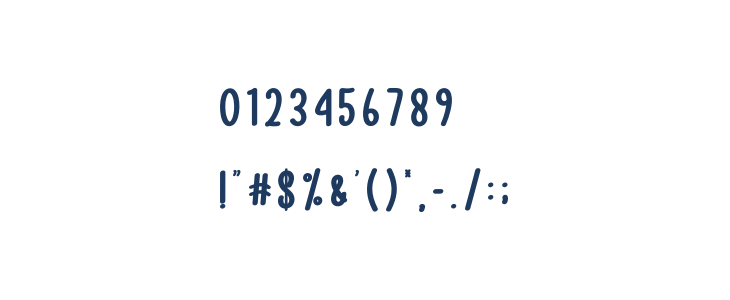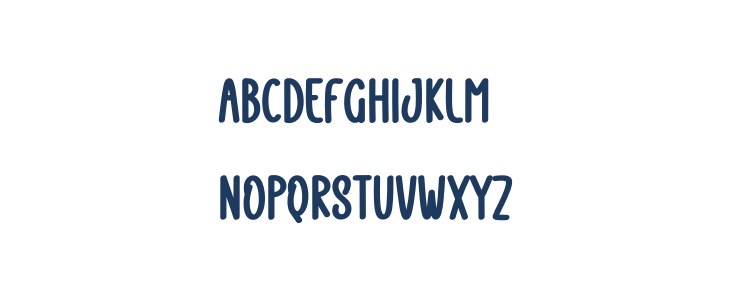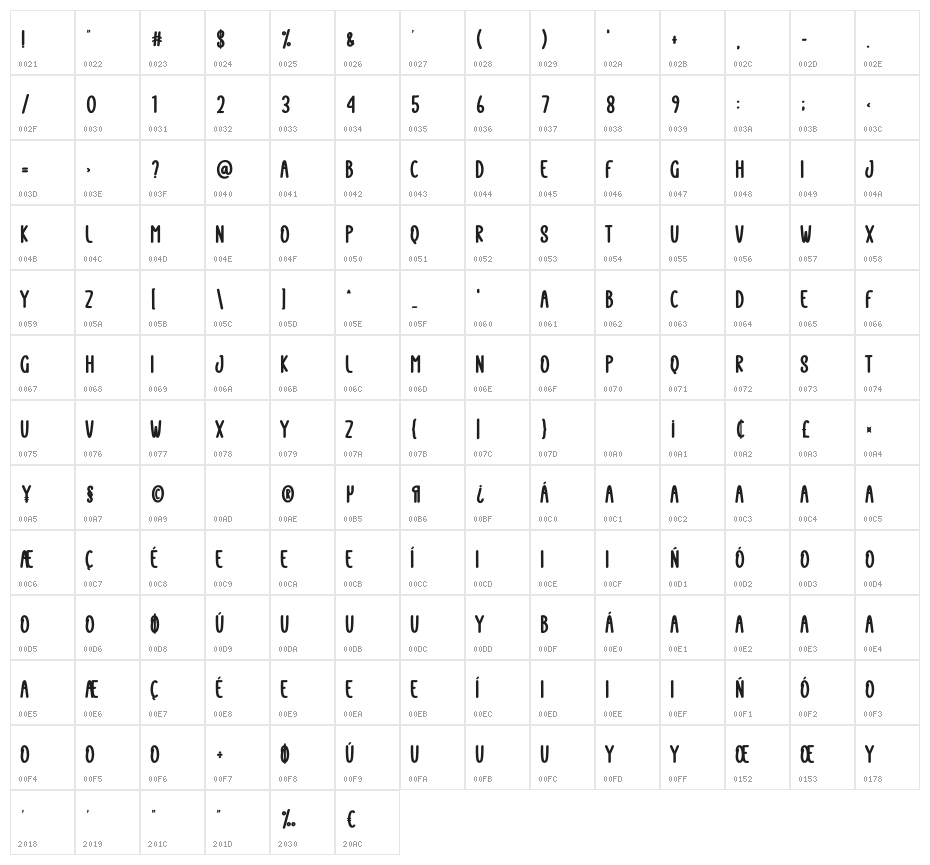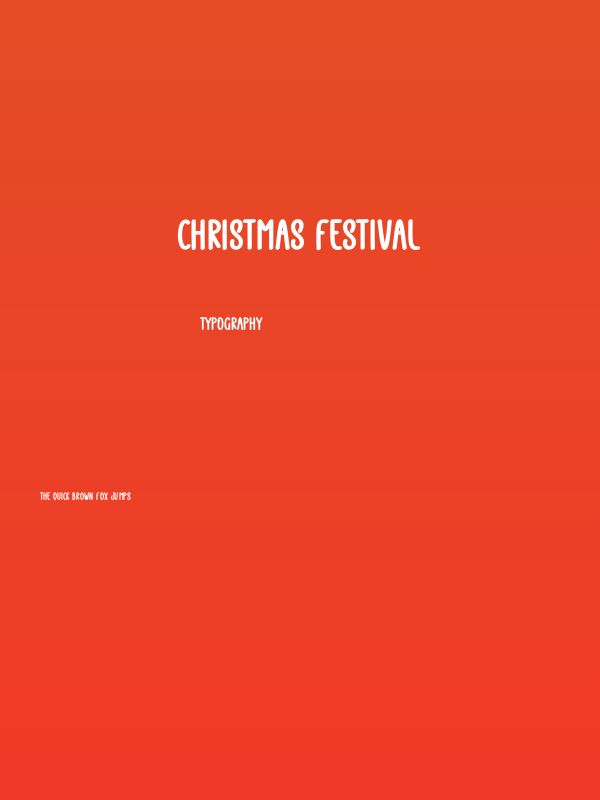
Christmas Festival Font
Christmas Festival Description
A playful, rounded sans-serif font with uniform stroke width, featuring slightly irregular, hand-drawn letterforms that evoke a casual and festive feel. The characters are upright and have a friendly, approachable appearance.
| Overall Style | Decorative, Playful, Festive |
| Use Case | Headlines, Posters, Invitations, Logos |
| Proposed Projects | Holiday cards, children's books, party invitations, festive branding, posters. |